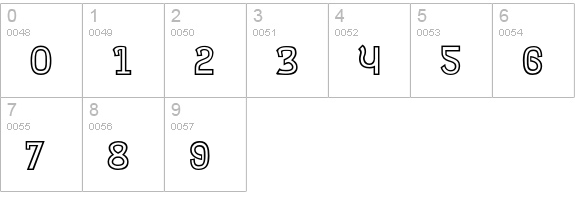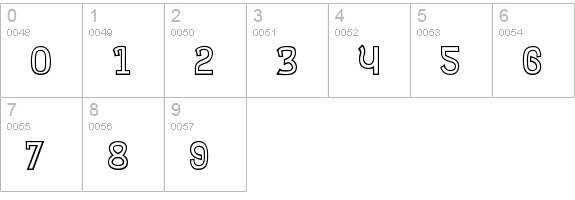
Tombstone-Outline Font Details
Tombstone-Outline font is a captivating typeface that is sure to add a touch of elegance and mystery to any design project. With its unique and intricate outline style, this font is perfect for creating eye-catching headlines, logos, and posters. The sharp angles and clean lines of Tombstone-Outline give it a modern and contemporary feel, making it ideal for both digital and print applications. What makes Tombstone-Outline font even more appealing is that it is available for free download at FontsMarket.com. That's right, you can get your hands on this stunning font without spending a dime. Whether you are a professional designer looking for a new addition to your font collection or a hobbyist searching for a font to elevate your personal projects, Tombstone-Outline font is the perfect choice. With its versatility and striking presence, Tombstone-Outline font can be used in a variety of design contexts. Its sleek and stylish appearance makes it an excellent option for fashion and beauty brands, while its bold and commanding nature is well-suited for gaming and entertainment projects. Additionally, this font can seamlessly blend into vintage-inspired designs, adding a touch of nostalgia and authenticity. The attention to detail in Tombstone-Outline font is evident in every curve and line, making it a true work of art. Its legibility remains intact even at smaller sizes, ensuring that your message is always clear and impactful. Whether you are designing a website, creating merchandise, or crafting invitations, Tombstone-Outline font will make your content stand out from the crowd. So why wait? Head over to FontsMarket.com and download Tombstone-Outline font for free today. Unleash your creativity and let this stunning typeface breathe new life into your designs. With its unique charm and freely available nature, Tombstone-Outline font is a must-have for any designer or enthusiast looking to make a lasting impression.